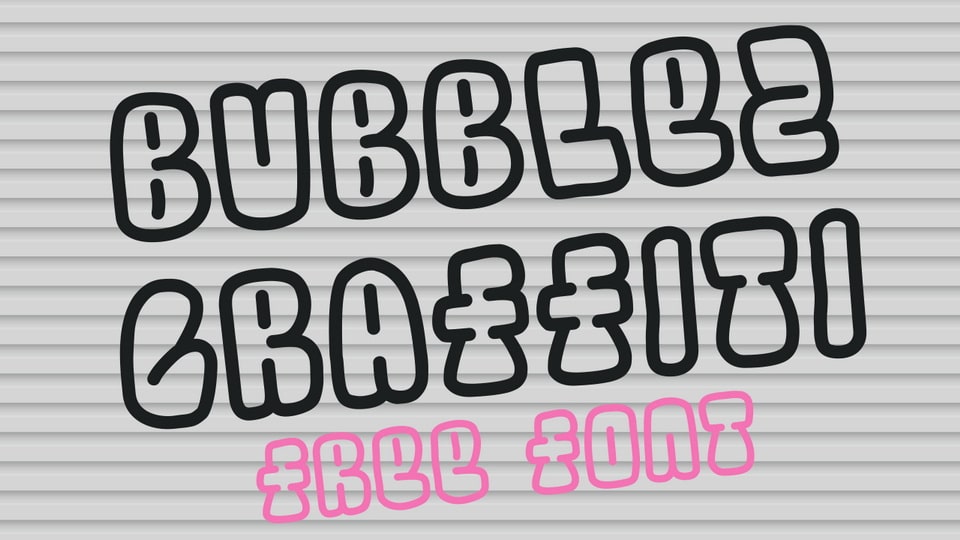
Download Bubblez Graffiti font, a street-savvy and dynamically outlined typeface that gives your text a rebellious edge with a playful twist. The bold outlines of Bubblez Graffiti font add an instant visual impact.